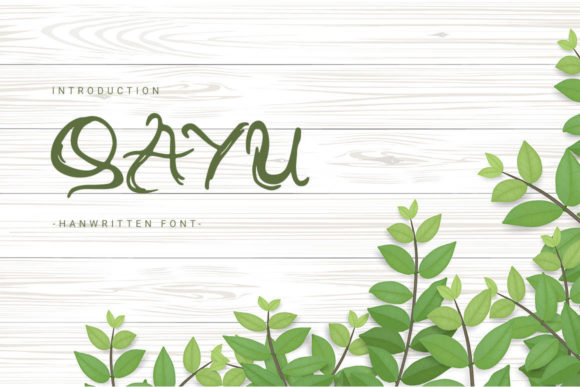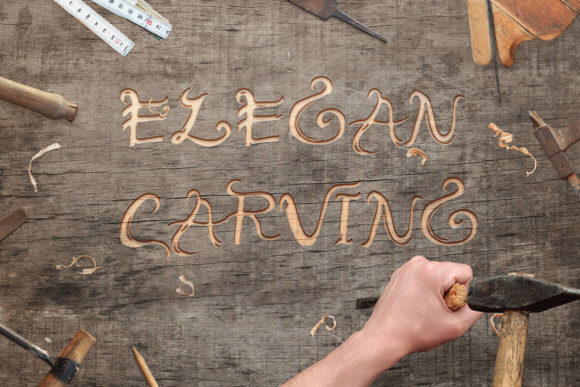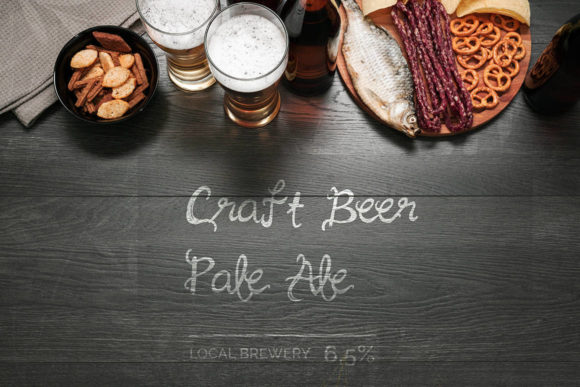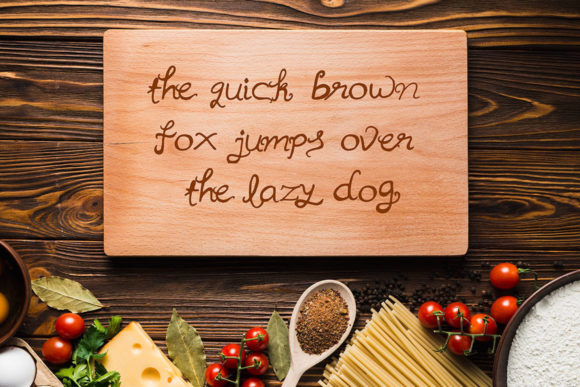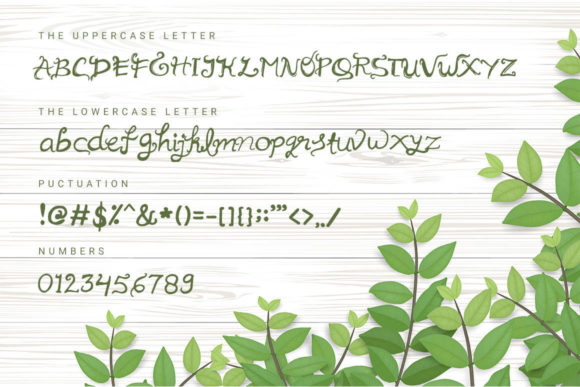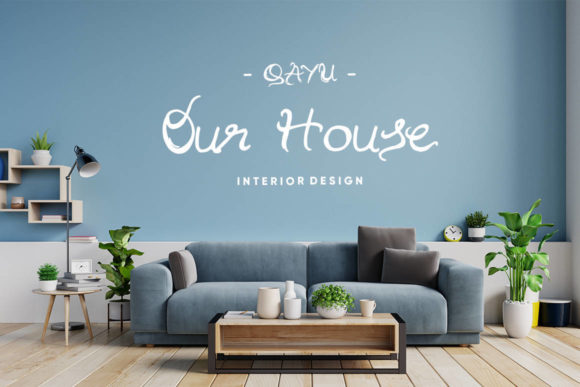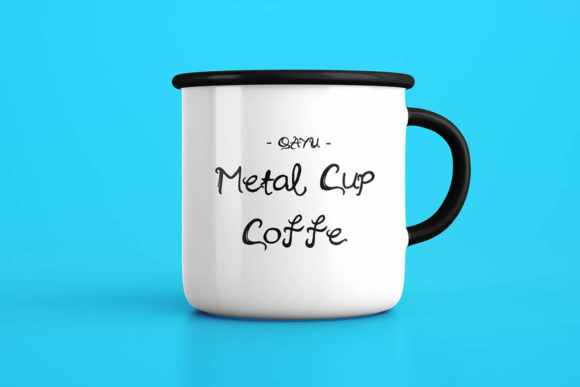
Qayu Font
About Qayu Font
Qayu is a captivating and one-of-a-kind handwritten font that exudes elegance and modernity. With its blend of classic calligraphic influences and contemporary flair, Qayu is the perfect choice to elevate your design projects to new heights. Here are some creative ways to make the most of Qayu’s charm and uniqueness:
1. Wedding Invitations: Use Qayu to create stunning and sophisticated wedding invitations, setting the tone for a memorable and romantic event.
2. Thank You Cards: Craft elegant and heartfelt thank you cards with Qayu, expressing gratitude in a stylish and refined manner.
3. Quotes and Typography Art: Design eye-catching typography art and quote posters using Qayu, infusing inspirational messages with an air of elegance.
4. Greeting Cards: Create chic and artistic greeting cards for various occasions, leaving a lasting impression on recipients.
5. Logos and Branding: Apply Qayu to logos and branding materials, adding a touch of sophistication and uniqueness to your brand identity.
6. Business Cards: Design memorable and striking business cards with Qayu, leaving a lasting impact on potential clients and partners.
7. Personal Stationery: Use Qayu for personal stationery, creating stylish letterheads and notecards that reflect your refined taste.
8. Book Covers: Apply Qayu to book covers, adding an artistic and captivating element to your book’s design.
9. Social Media Graphics: Create visually appealing and elegant social media posts with Qayu, drawing attention to your content.
10. Art Prints: Design exquisite art prints using Qayu, offering art enthusiasts unique and captivating pieces.
11. Packaging and Labels: Utilize Qayu for packaging and label designs, giving your products a touch of artistic sophistication.
12. Event Invitations: Use Qayu to design invitations for special events and celebrations, adding an air of exclusivity and allure.
13. Signage and Displays: Apply Qayu to signage and displays, making an artistic and memorable statement in various settings.
14. Magazine Headlines: Use Qayu for magazine headlines, adding a touch of sophistication and artistic flair to editorial layouts.
15. Website and Blog Headers: Implement Qayu in website banners and blog headers, enhancing the visual appeal of your online platform.
Qayu’s elegant and unique style makes it an excellent choice for a wide range of design projects, from formal invitations to artistic expressions. Its ability to blend classic calligraphic influences with a contemporary feel gives your designs a fresh and timeless appeal. Fall in love with Qayu and discover how it can elevate your projects to the highest levels, leaving a lasting impression on your audience and adding a touch of artistic refinement.